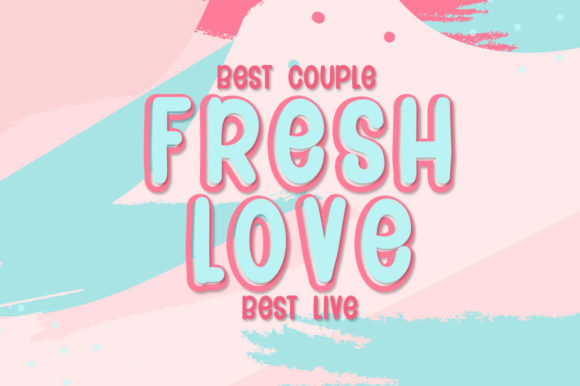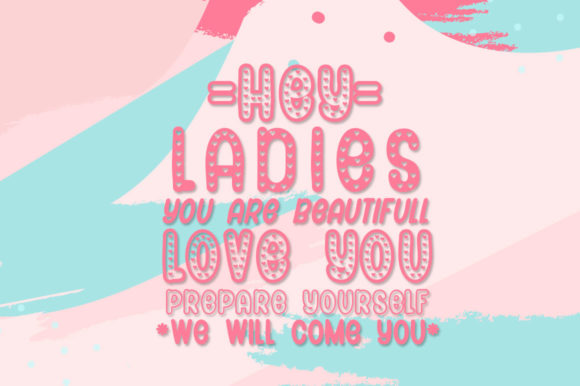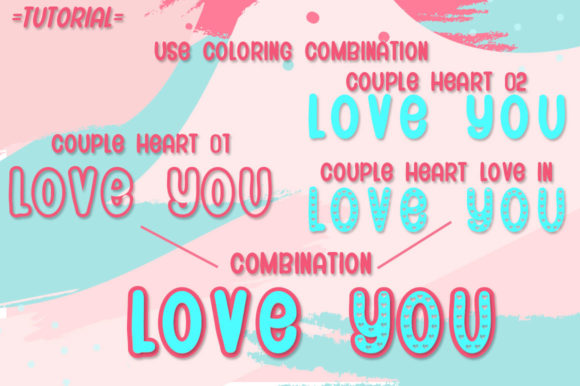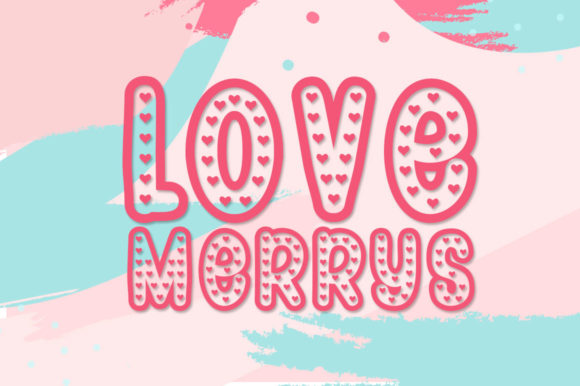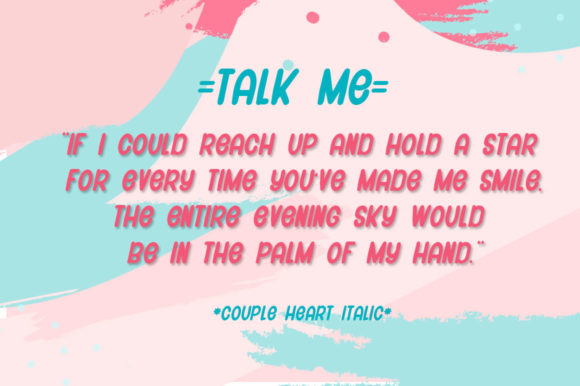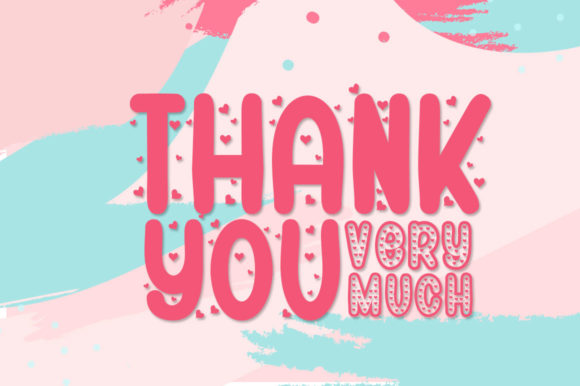
Introducing Couple Heart Font: The Ultimate Romantic Addition to Your Designs
Are you a designer or crafter looking for a font that exudes love and warmth? Look no further than Couple Heart Font, a charming handwritten font that is sure to capture the hearts of your audience. With its authentic feel and adorable aesthetic, Couple Heart Font is the perfect addition to your design toolkit.
The Perfect Font for Romantic Designs
Couple Heart Font is a cute and playful handwritten font that is designed to add a romantic touch to your designs. Whether you’re creating wedding invitations, stationery art, social media posts, or greeting cards, this font is sure to make your designs stand out. Its unique and authentic feel will transport your audience to a world of love and romance, making it the perfect choice for any project that requires a touch of warmth and personality.
Key Features of Couple Heart Font
- Cute and Playful Design: Couple Heart Font features a charming and playful design that is sure to capture the hearts of your audience.
- Authentic Feel: This font has an authentic feel that will add a touch of warmth and personality to your designs.
- Handwritten Style: Couple Heart Font is a handwritten font that is designed to mimic the look and feel of handwritten text.
- Versatile: This font is perfect for a wide range of design projects, including wedding invitations, stationery art, social media posts, and greeting cards.
Uses for Couple Heart Font
Couple Heart Font is a versatile font that can be used for a wide range of design projects. Here are some ideas to get you started:
- Wedding Invitations: Create beautiful and romantic wedding invitations that will set the tone for the big day.
- Stationery Art: Use Couple Heart Font to create stunning stationery art that will add a touch of personality to your correspondence.
- Social Media Posts: Create eye-catching social media posts that will capture the hearts of your followers.
- Greeting Cards: Use Couple Heart Font to create cute and personalized greeting cards for special occasions.
Why Choose Couple Heart Font?
There are many fonts available that claim to be romantic and charming, but Couple Heart Font stands out from the rest. Here are just a few reasons why:
- Unique Design: Couple Heart Font features a unique and adorable design that is sure to capture the hearts of your audience.
- Easy to Read: This font is easy to read, making it perfect for a wide range of design projects.
- High-Quality: Couple Heart Font is a high-quality font that is designed to deliver exceptional results.
Tips for Using Couple Heart Font
Here are a few tips for using Couple Heart Font in your designs:
- Pair with Other Fonts: Couple Heart Font pairs well with other fonts, so don’t be afraid to experiment with different combinations.
- Use for Headlines and Titles: This font is perfect for headlines and titles, where you want to make a bold and romantic statement.
- Experiment with Colors: Couple Heart Font looks great in a variety of colors, so don’t be afraid to experiment and find the perfect hue for your design.
| Font Name | Couple Heart Font |
| Author | jehansyah251 |
Couple Heart Font is a charming and romantic font that is sure to add a touch of warmth and personality to your designs. With its unique and authentic feel, this font is perfect for a wide range of design projects, from wedding invitations to social media posts. Whether you’re a designer or crafter, Couple Heart Font is a must-have addition to your toolkit.